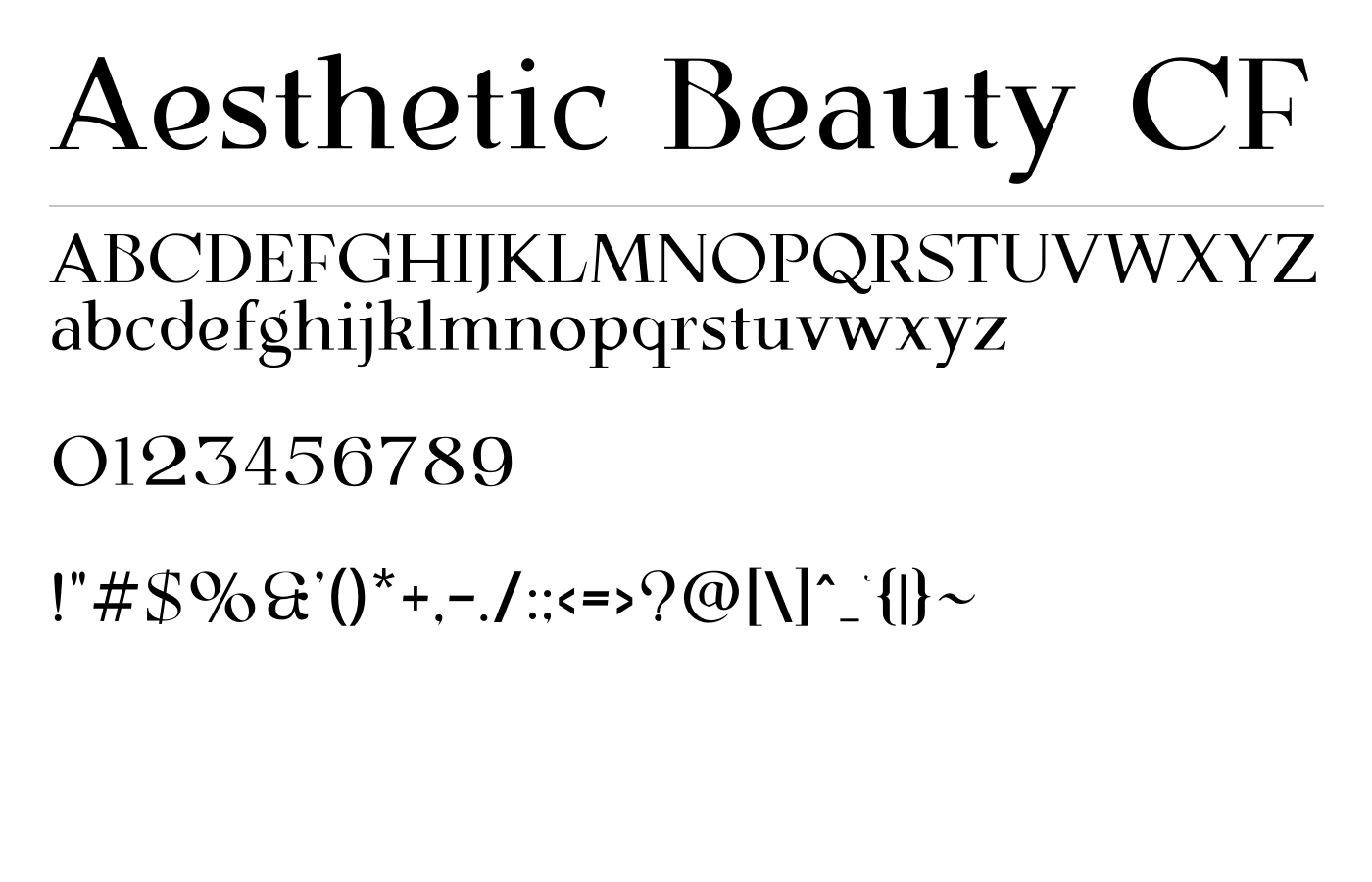
Aesthetic Beauty CF is a refined serif font with a classic, elegant feel, featuring high contrast between thick and thin strokes and delicate, bracketed serifs. Its graceful letterforms, including single-story a and distinct Q tail, lend a sophisticated charm perfect for luxury branding, editorial headlines, and stylish packaging. This font works best where a timeless, tasteful impression is desired, balancing readability with a touch of artistic flair.
Aesthetic Beauty CF Font